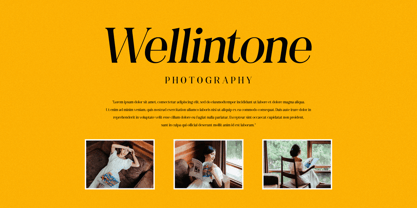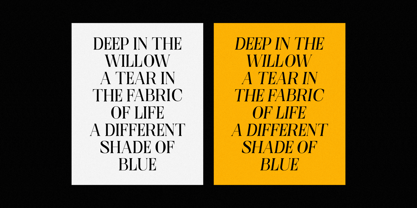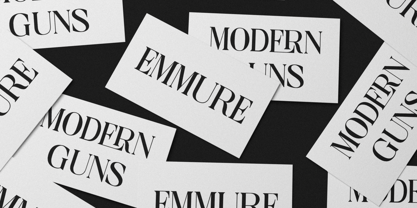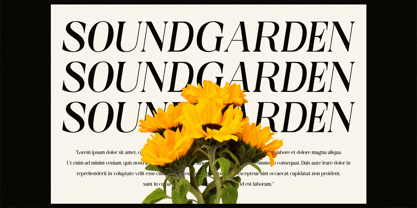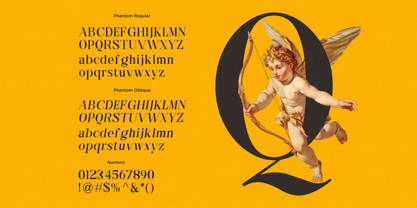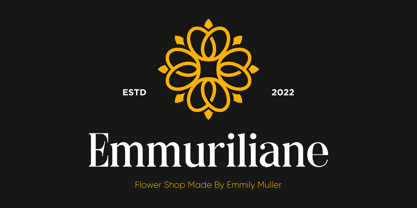
Lumina Phantom
by Luminatype Studio
The Lumina Phantom Font Family was designed by Bias Surya Buana and published by Luminatype Studio. Lumina Phantom contains 2 styles and family package options. More about this family
Lumina Phantom a Modern Display Serif with 2 Style Phantom Regular & Phantom Oblique created to express things in a modern way. Inspired by modern serif typefaces trend around the world.
Phantom is perfect for display purposes such as editorial projects, Logo designs, Music Albums, Apparel Branding, Product Packaging, Magazine Headlines, or simply as a stylish text overlay on any background image.
Designers: Bias Surya Buana
Foundry: Luminatype Studio